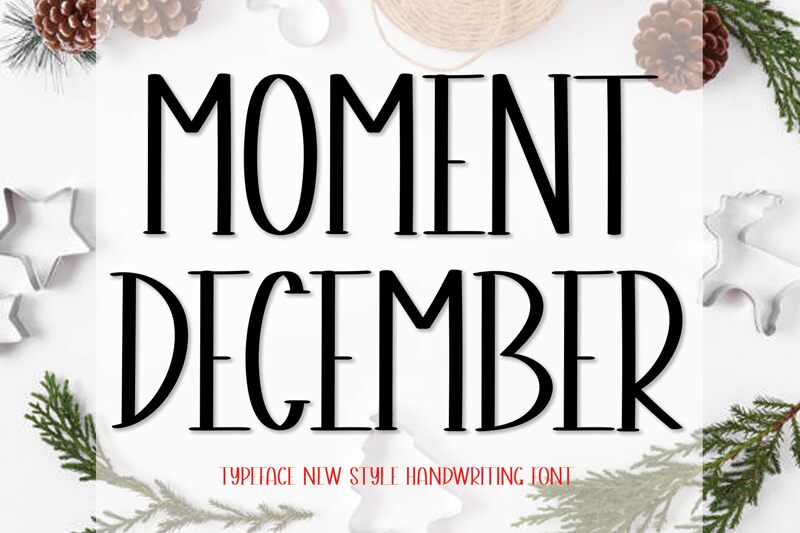
Moment December
Moment December, crafted by Scratchones, is a semi-light and condensed handwritten font that exudes a personal touch with its elegant and fluid strokes. Its aesthetic charm lies in the delicate balance of casual penmanship and sophisticated design, setting it apart as both inviting and refined. The artistry of Moment December's characters suggests versatility for various creative endeavors-ideal for heartfelt invitations, branding projects that require a signature look, or editorial designs seeking an intimate flair.
Its handwritten style conveys warmth and authenticity, making it an excellent choice for personalized messaging or artisanal product packaging. With Moment December's distinct character shapes and consistent rhythm in letterforms, designers are endowed with a font that promises to add a bespoke essence to their creations while maintaining readability.